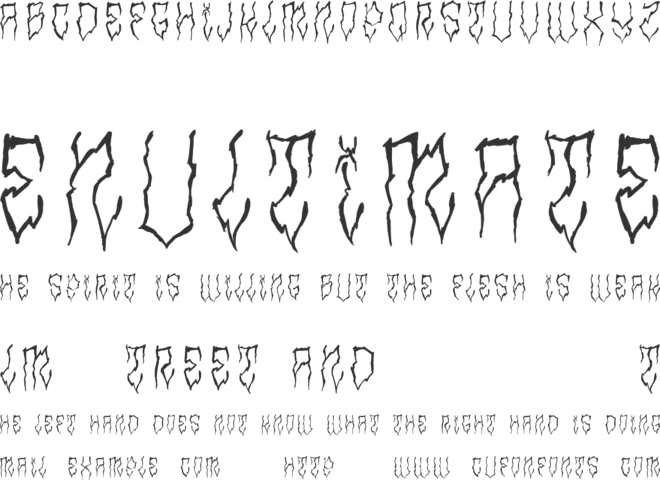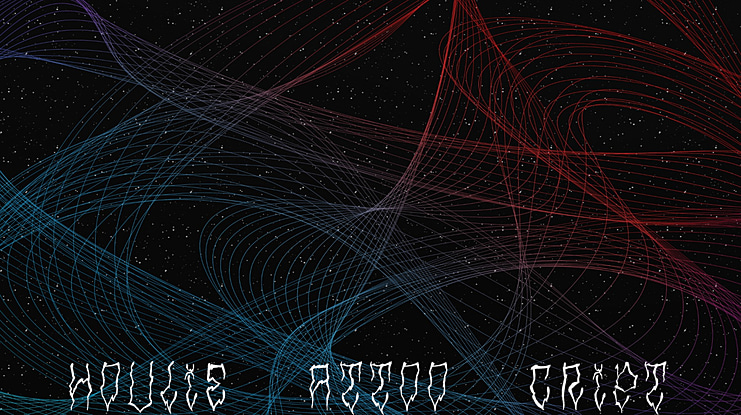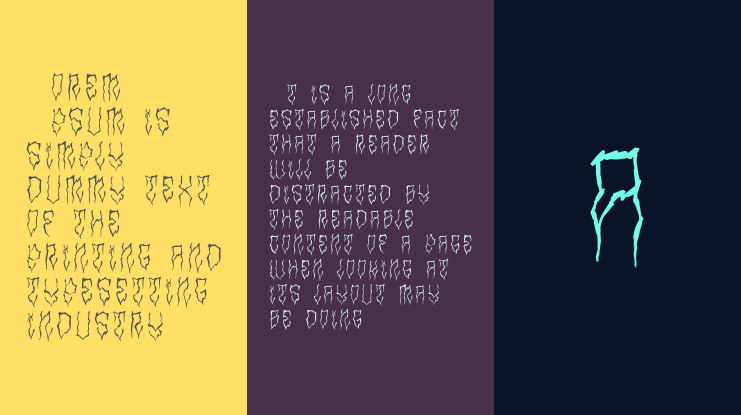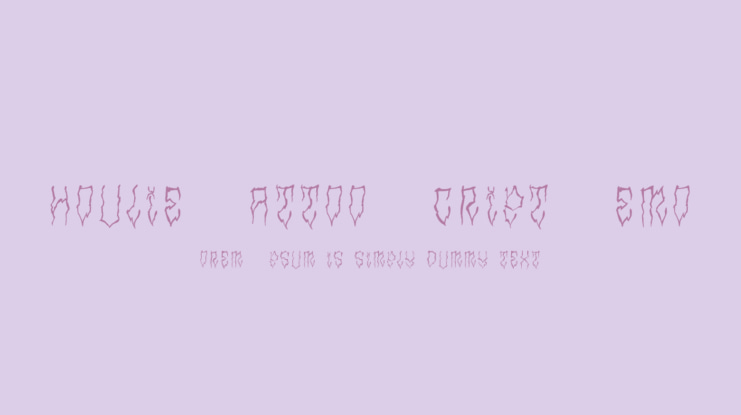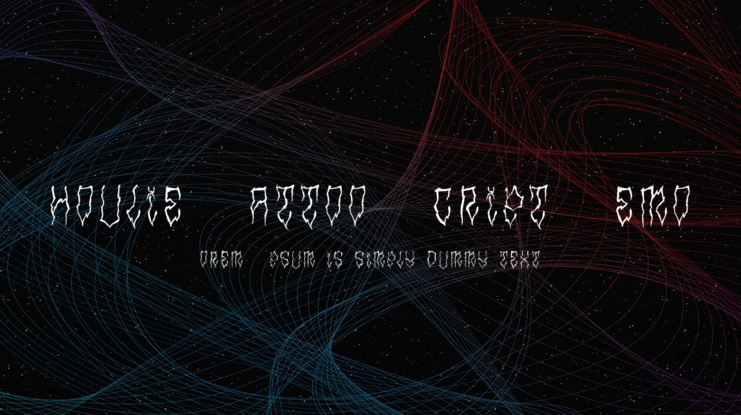
Ghoulie Tattoo Script Demo Font
Ghoulie Tattoo Script was inspired by a photo of a knuckle tattoo script I saw many years ago, when I originally began designing fonts. The photo had only the letters E, R,and C. From there, I interpreted the letters with a little more intensity, and then extrapolated a full alphabet.
I always held off of digitizing my work, because I recognized that it's not okay to infringe on someone's personal style or livelihood. In the years since, I never came across another sample of the lettering.
A few days ago, I was cleaning and came across my original sketchbook, with the full alphabet tucked inside. Not wanting the work to vanish without a trace, I finally scanned and digitized the letters into a full font, with the decision to make the font 100% free.